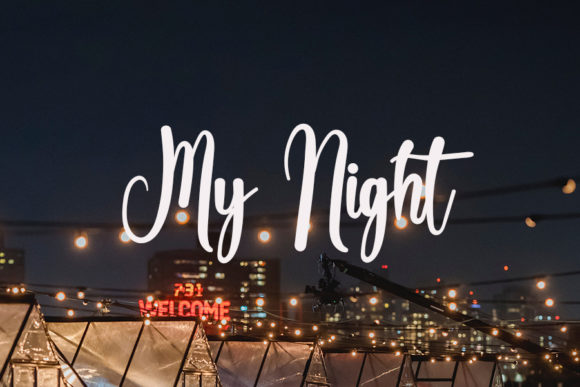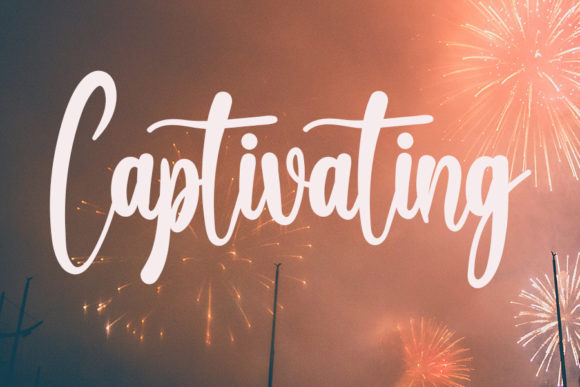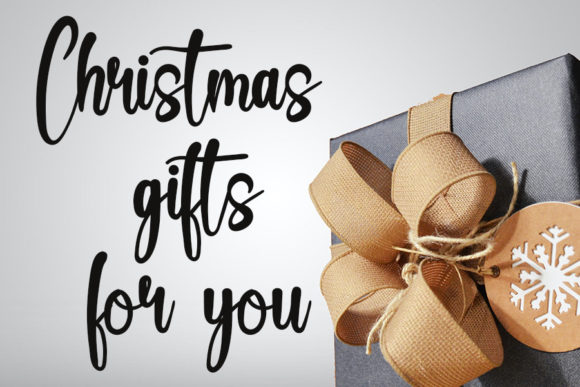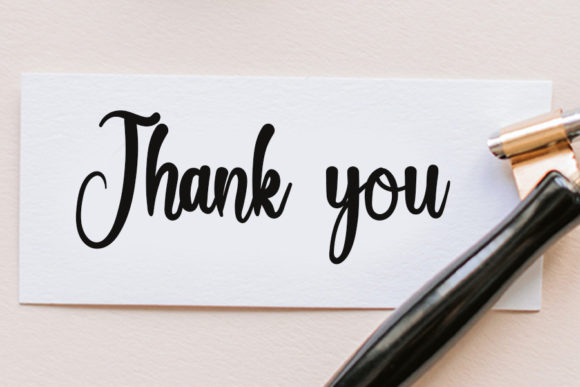
Introducing Christmas Family Font: Elevate Your Designs with Elegance
Are you looking for a font that embodies the spirit of the holiday season while bringing a touch of modern sophistication to your projects? Look no further than the Christmas Family font, a stunning script font that is sure to captivate your audience. Inspired by classic calligraphy, this gorgeous font strikes the perfect balance between traditional and contemporary design elements.
What Makes Christmas Family Font Stand Out?
Christmas Family is not just another font; it’s a design statement. Its modern vibe and spotless form make it an ideal choice for a wide range of projects, from holiday-themed crafts and decorations to professional branding and marketing materials. The font’s balanced and varied strokes ensure that it is neither too thin nor too thick, making it highly legible and visually appealing.
Key Features of Christmas Family Font
- Modern Vibe: The font boasts a contemporary feel that will make your designs stand out in a crowded digital landscape.
- Spotless Form: Its clean and crisp appearance ensures that your text remains clear and easy to read, even at smaller sizes.
- Balanced and Varied: The carefully crafted strokes offer a perfect balance of thickness and thinness, adding character and elegance to your text.
- Inspired by Classic Calligraphy: It pays homage to traditional calligraphy, bringing a touch of timeless sophistication to your designs.
Whether you’re a professional designer looking for the perfect font to elevate your client’s branding or a crafter seeking to add a personal touch to your holiday projects, Christmas Family font is an excellent choice. Its versatility makes it suitable for a variety of applications, including:
- Branding and marketing materials
- Web design and digital content
- Stationery and packaging
- Pair it with Complementary Fonts: For maximum impact, pair Christmas Family with clean sans-serif fonts to create a striking contrast.
- Experiment with Sizes and Colors: Play around with different sizes and colors to find the perfect combination that suits your project’s theme and tone.
- Add Decorative Elements: Enhance your design with festive decorative elements that complement the font’s holiday theme.
Christmas Family font is more than just a font; it’s a design tool that can transform your projects into stunning works of art. With its modern vibe, spotless form, and classic calligraphy inspiration, it’s the perfect addition to any designer’s or crafter’s toolkit. Whether you’re creating holiday-themed projects or simply looking to add a touch of elegance to your designs, Christmas Family font is sure to exceed your expectations.